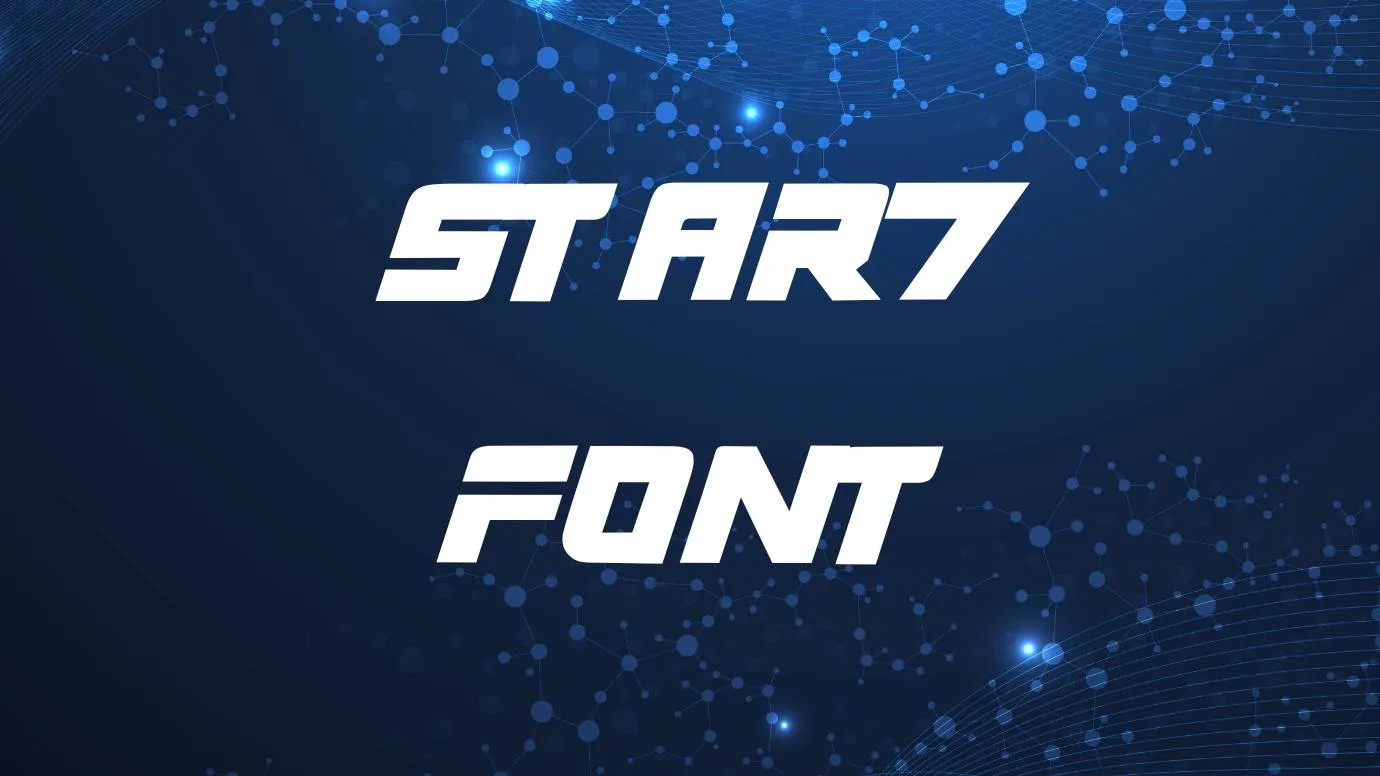
Star Font Family is a trendy display-type font. GFR Creative is the main inventor of this impressive glance typeface. This attractive font contains a spirited and italic shape that is appropriate for every italic text design purpose.
The best pairing font with this unique typeface is gin font which has bold characters. This typography has bold shape alternatives that make your design more attractive and more beautiful.
Star7 Font